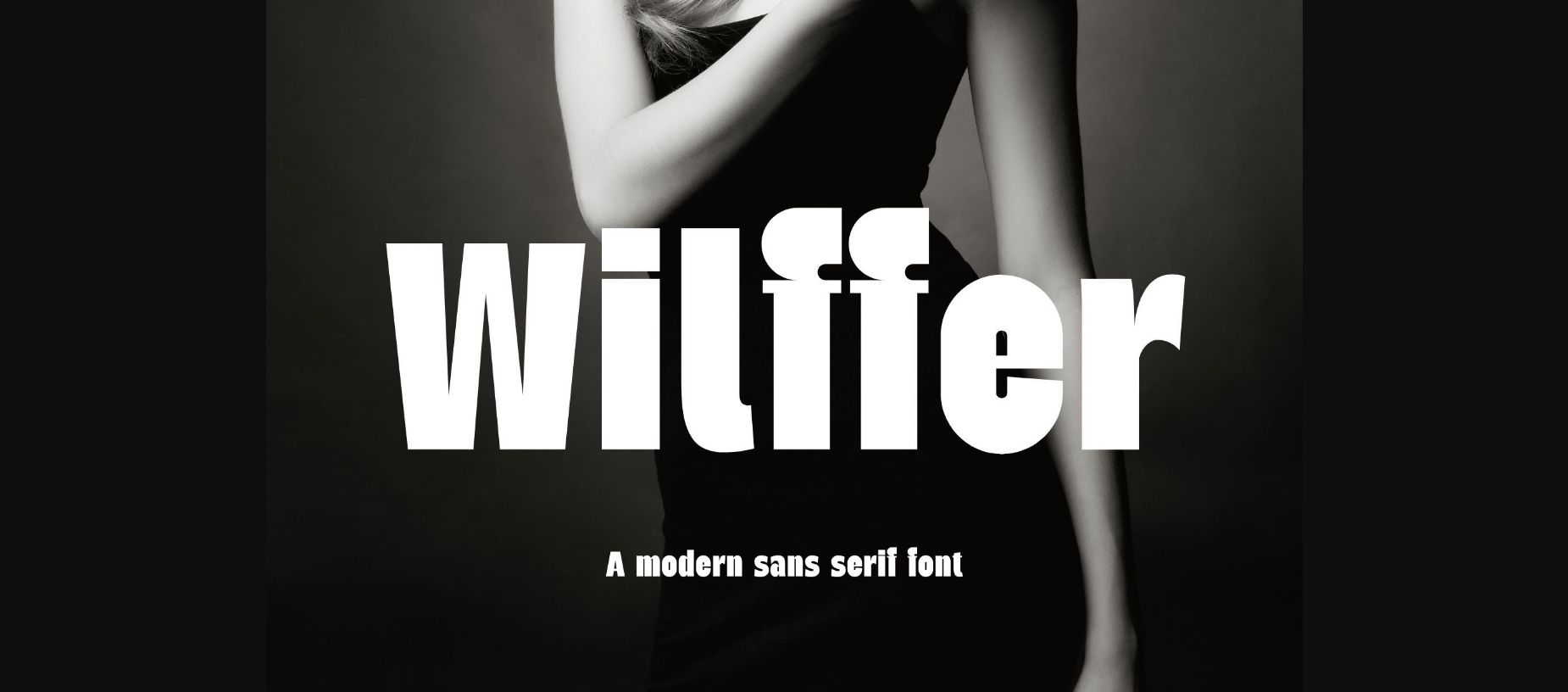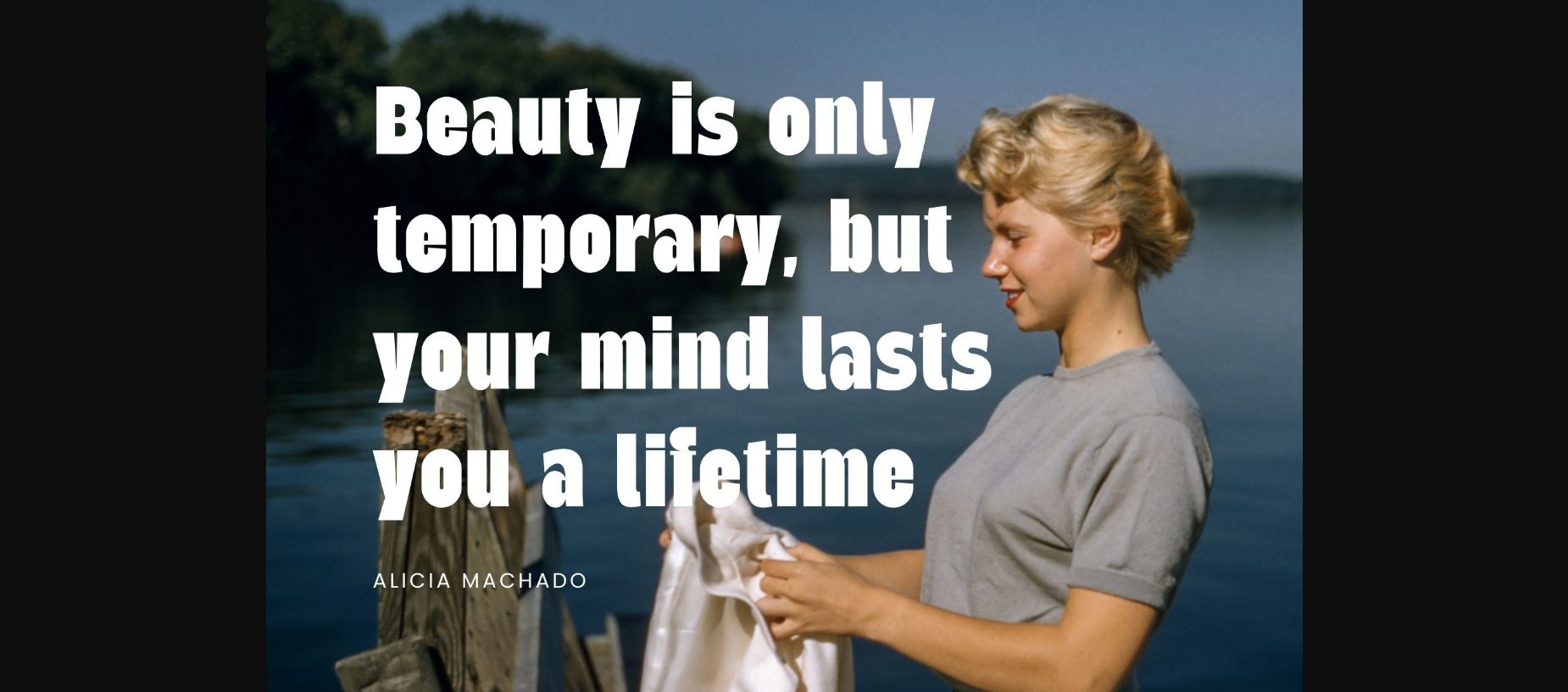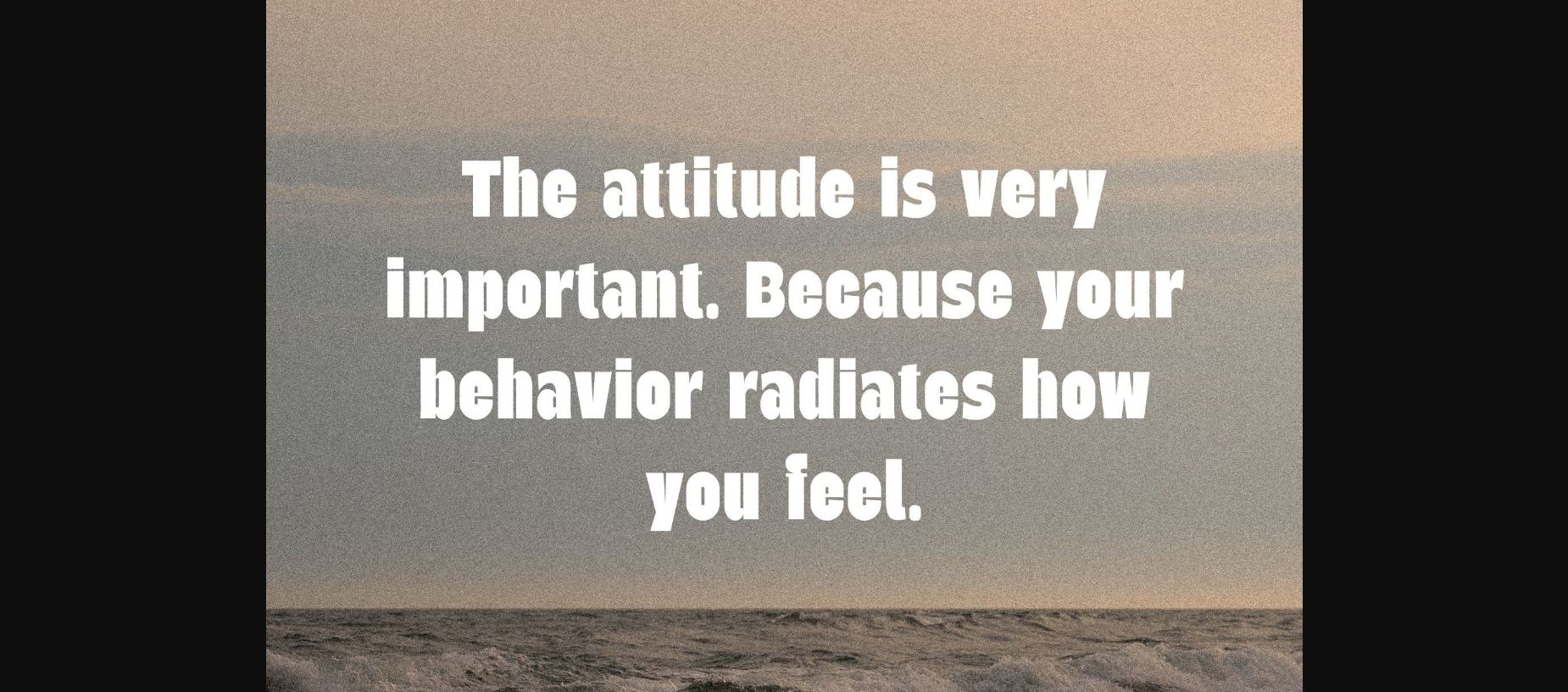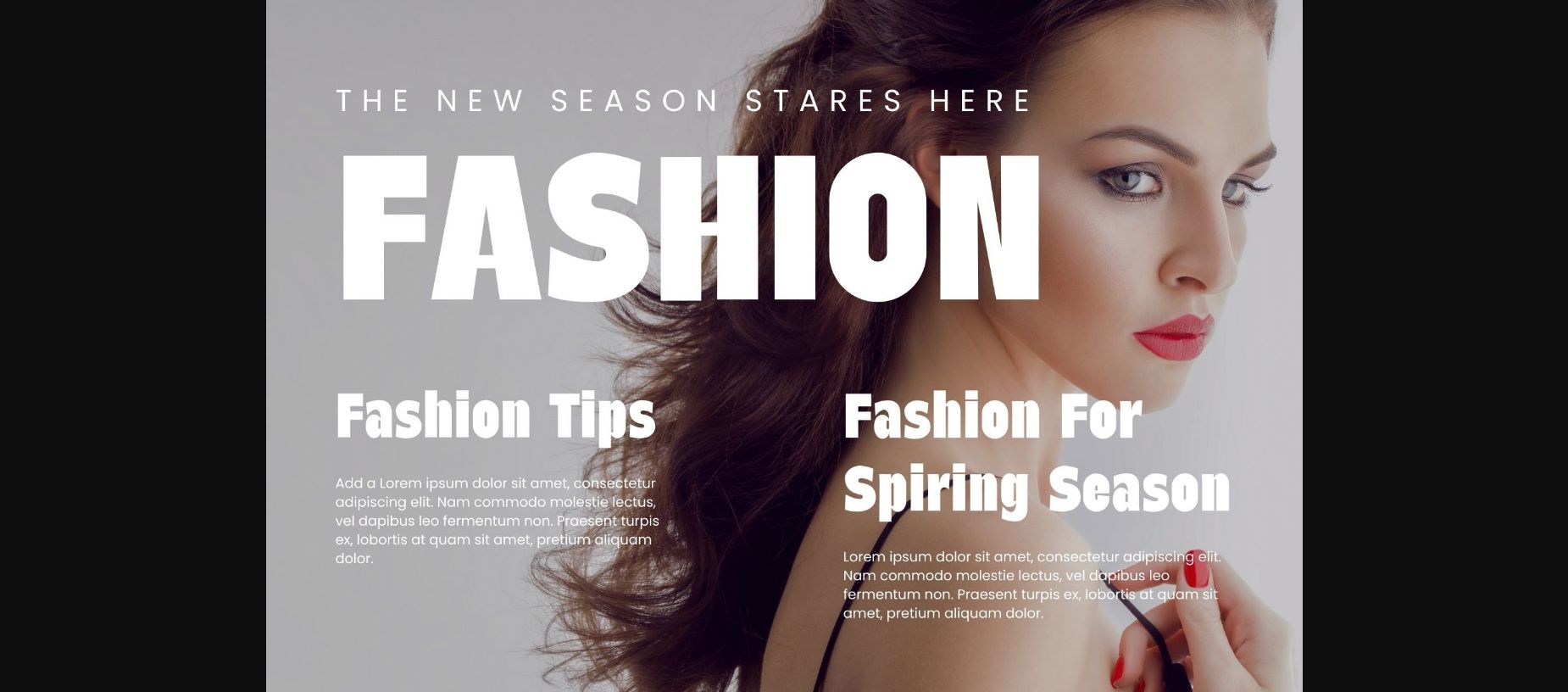
About Wilffer Font
Wilffer is a sleek and contemporary sans serif font designed for clear and impactful communication. Its clean lines and balanced proportions make it perfect for a wide range of applications, from branding and advertising to digital interfaces and editorial design. Wilffer’s modern simplicity ensures legibility and versatility, making it an ideal choice for projects that require a touch of sophistication and style.